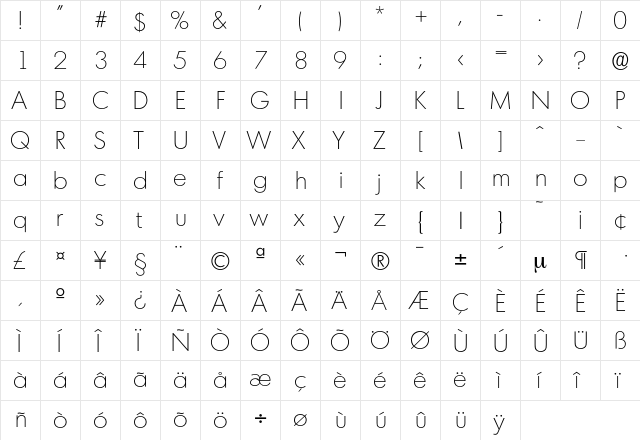
Montreal-Xlight Regular
Design Context for Montreal-Xlight Typeface
Montreal-Xlight offers clean, dependable letterforms without strong stylistic allegiance, making it a practical choice for designers who need flexibility. Its slender proportions lend an understated elegance to any composition.